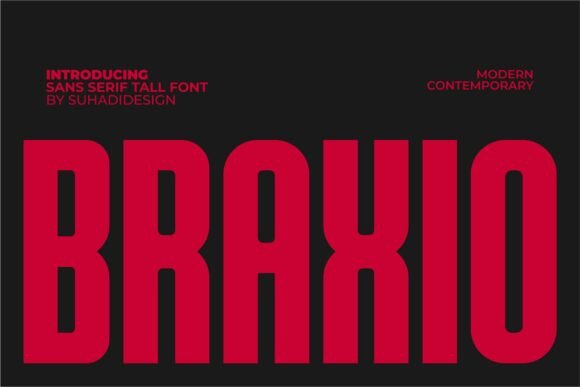
What is Braxio Font?
Braxio is a bold, tall display sans-serif font with a contemporary twist. Designed for modern branding and attention-grabbing displays, its clean and confident structure makes it perfect for posters, headlines, logo design, tech products, and stylish editorial layouts. Braxio’s condensed height helps maximize space while maintaining powerful impact. Whether for digital projects or print, this font exudes strength and minimalism in every character.
- ✨ Versatility: Braxio Font is incredibly versatile, making it suitable for a wide range of design projects.
- ✅ Clean and Confident Structure: The font’s clean lines and confident structure give it a professional look that’s hard to achieve with other fonts.
- 💡 Attention-Grabbing: Braxio Font is designed to grab attention, making it perfect for headlines, posters, and other display uses.
- 📈 Scalability: The font remains legible and impactful even at smaller sizes, making it ideal for a variety of applications.
- 🤔 Limited Use in Body Text: Due to its bold nature, Braxio Font may not be the best choice for body text or longer blocks of text.
- ⚠️ Overuse: As with any bold font, there’s a risk of overusing Braxio Font, which can make your design look cluttered and unprofessional.
The Story Behind Braxio Font
Braxio Font was designed with the modern designer in mind. Its creator, a renowned type designer, aimed to craft a font that would be both bold and elegant. Inspired by the urban landscape and the world of technology, Braxio Font was born. Its condensed height and clean structure make it perfect for a wide range of design applications.
| Font Name | Braxio Font |
| Author | suhadidesign |
| What is Braxio Font best used for? | Braxio Font is best used for bold, eye-catching displays such as posters, headlines, logo design, tech products, and stylish editorial layouts. |
| Is Braxio Font suitable for body text? | No, Braxio Font is not suitable for body text due to its bold nature. It’s best used for headings and titles. |
| Is Braxio Font available in different weights? | Yes, Braxio Font is available in different weights, making it versatile and suitable for a wide range of design applications. |